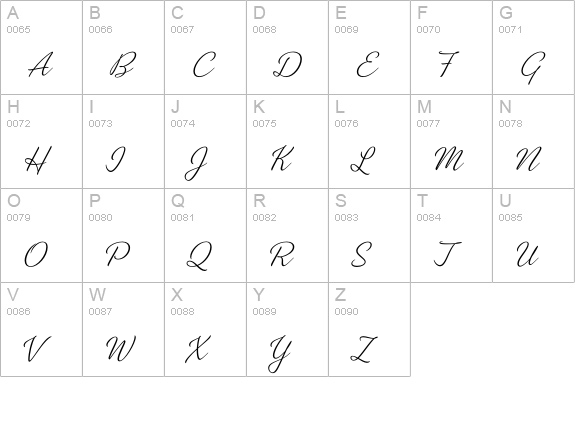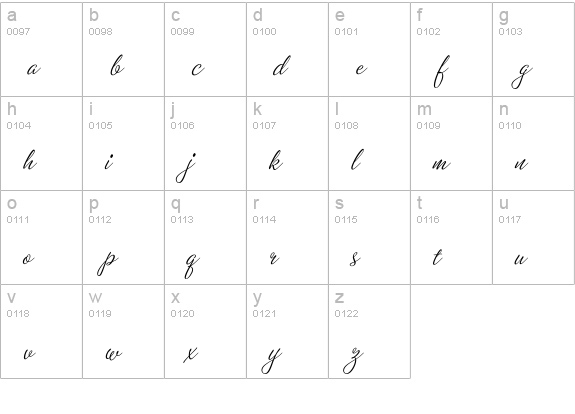
House Holiday Script Font Details
House Holiday Script is a charming and elegant handwritten font that brings a touch of whimsy to any design project. With its flowing lines and graceful curves, this font is perfect for adding a festive and playful vibe to your holiday creations. Whether you're designing greeting cards, invitations, posters, or any other project that needs a touch of holiday cheer, House Holiday Script is sure to make a statement. The best part? House Holiday Script is available for free download at FontsMarket.com, making it easy for you to add this delightful font to your collection without breaking the bank. So go ahead and give your designs a festive flair with House Holiday Script - your audience will thank you for it!